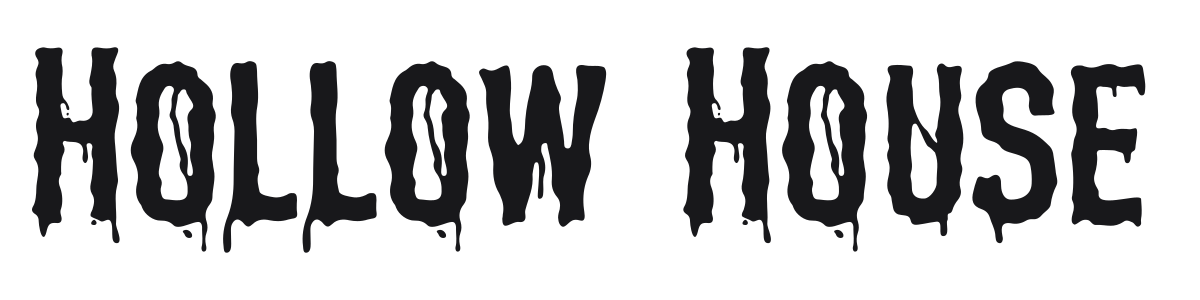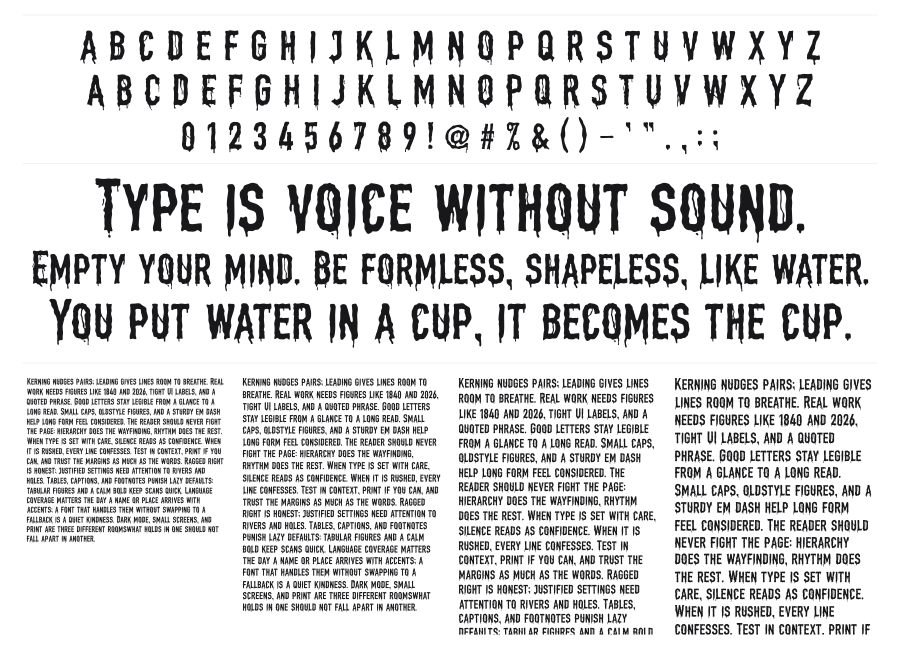
Hollow House
Hollow House is a bold horror display font with thick, chunky characters that melt into jagged drips along their lower edges. The rough, ink-splattered texture and downward-flowing blobs give it an unmistakably sinister quality drawn straight from classic horror-movie title cards. Best used large, where the drip details read clearly.